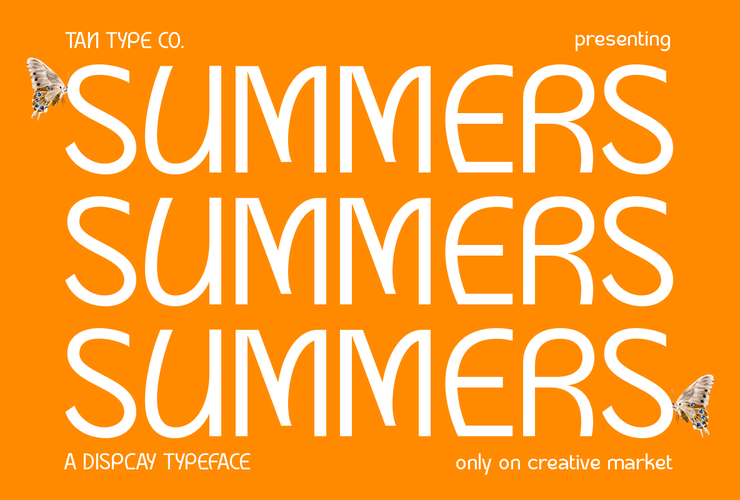
TAN Summers Font Free Download
TAN Summers free download: the official answer
Geometric display or informal sans?
TanType describes the font in one line: “TAN – SUMMERS is a display type with simple and geometric lines making it look modern and sleek.” Creative Market files it under sans serif fonts.
Luc Devroye’s type design index lists it among TanType’s 2021 releases as “Summers (an informal sans)”. So two sources agree it is a sans serif made for display sizes, and they stress different sides of it: TanType says geometric and sleek, Devroye says informal.
We have not examined the font files and will not describe individual letters. Use the official preview images and type your own headline into the preview box before buying.
Good jobs for the TAN Summers font
“Display type” means headlines, not paragraphs. Based on how TanType describes it, sensible uses include:
- Brand names and logotypes that need a clean, modern look.
- Social media graphics and short slogans.
- Product packaging and labels.
When was TAN Summers released?
The Creative Market listing is dated 19 July 2021. Luc Devroye’s index also places it among TanType’s 2021 fonts.
Does TAN Summers support languages other than English?
The listing says it has multilingual support but does not name the languages. Type your text into the preview box to check accented letters before buying.